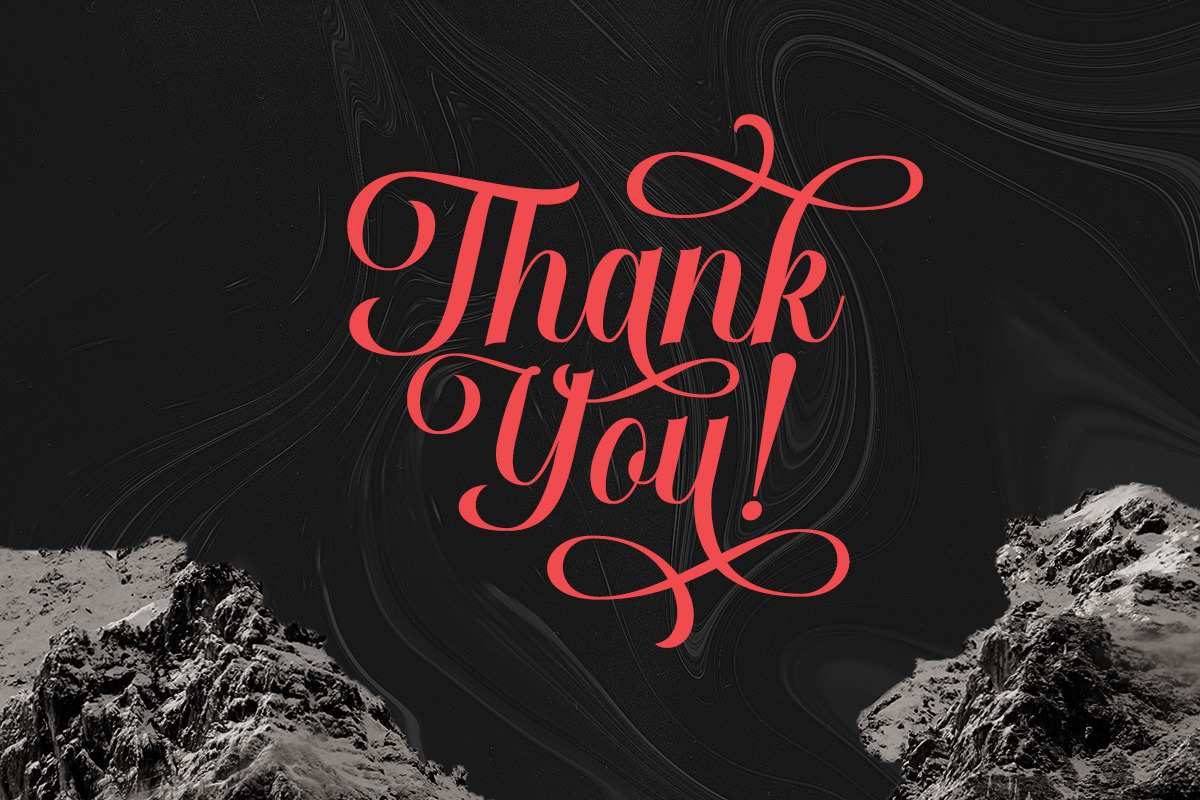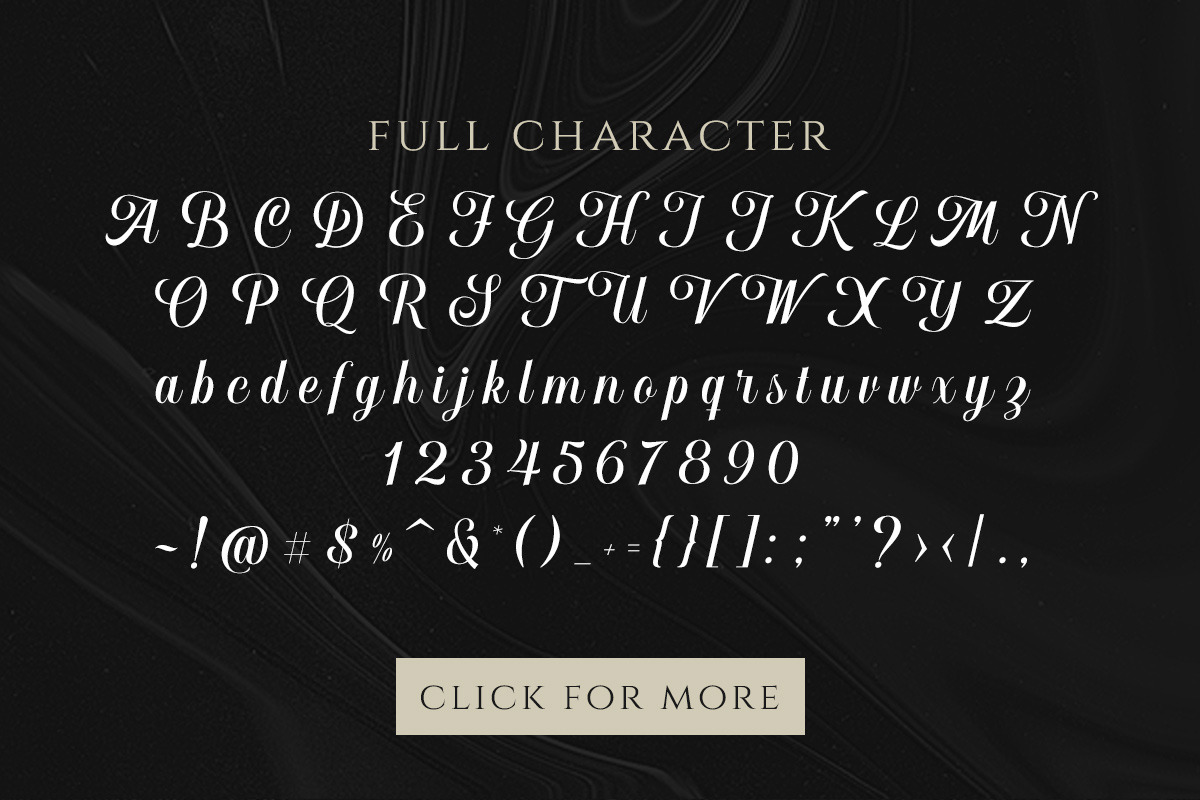
Hougbon - A Glamour Script
Introducing, our new font, Hougbon!
Hougbon is a script with feminine, smooth and glamour feels. Carefully made with up to 8 stylistic set each characters. This font perfectly made to be applied in various formal forms such as invitations, labels, logos, magazines, books, greeting / wedding cards, packaging, fashion, make up, stationery, novels, labels or any type of advertising purpose. Including number, symbol, punctuation and also with multilingual support. This font already PUA Encoded, so you can use it to another design apps without opentype feature.